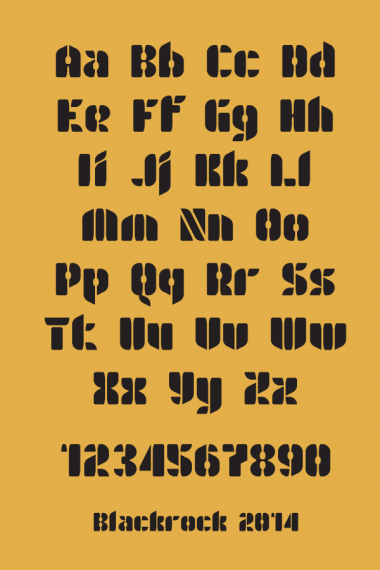
Really cool.
Good nudging :)
Gr8!
5 and 9 look slightly off, and 1 may be too thick. Also I think capital J should look more like lowercase J, IMHO.
Very cool...love that B.
epic!
Very nice, :) I love the Q.
Ooohhh, and your Et.